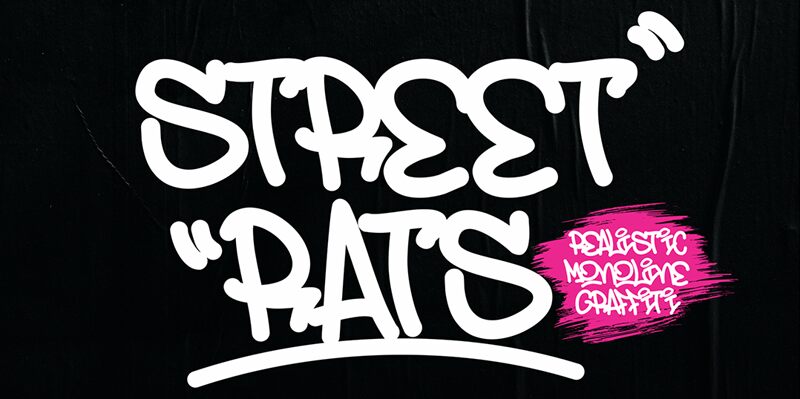
Street Rats, a striking graffiti-inspired font crafted by Cikareotype Studio, exudes a raw, rebellious energy that captivates the eye. Its bold, dynamic letterforms feature sharp edges and an organic, hand-painted aesthetic, evoking the vibrant spirit of urban street art. The font's unapologetic style and gritty undertones lend a sense of authenticity and edginess, making it a compelling choice for projects seeking to convey a rebellious, nonconformist sentiment.
The versatility of Street Rats allows it to thrive in a variety of design contexts, from gritty punk album covers and edgy fashion branding to grunge-inspired event posters and hard-hitting activist campaigns. Its versatile nature makes it a valuable asset for designers looking to infuse their work with a bold, unapologetic visual statement that commands attention and resonates with audiences seeking a taste of uncompromising street-level aesthetics.